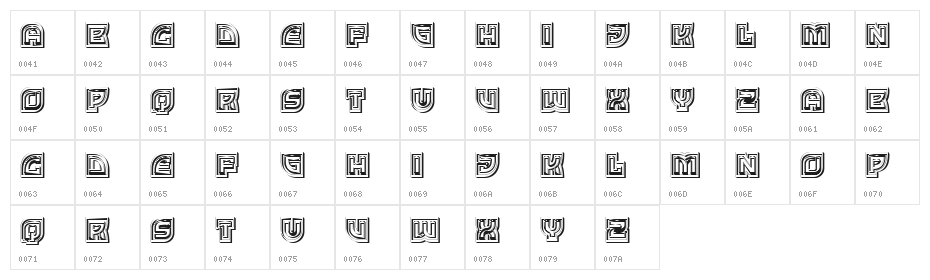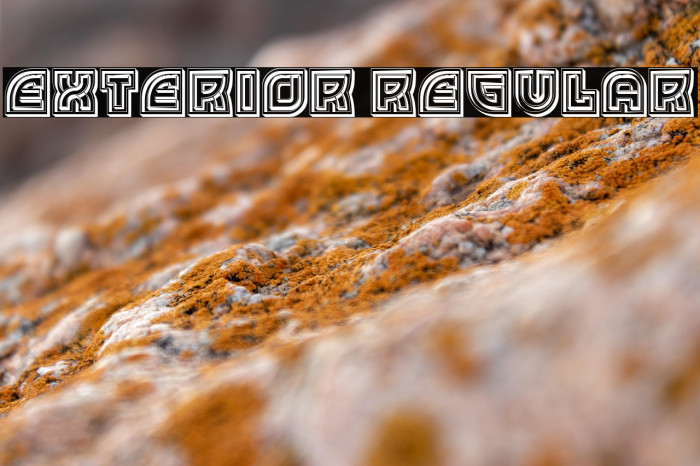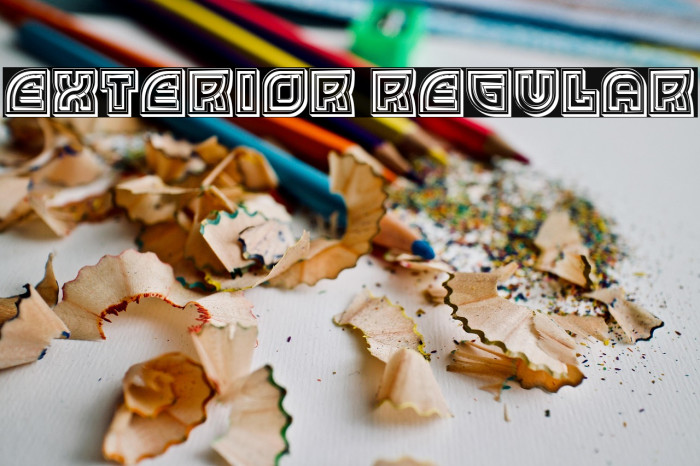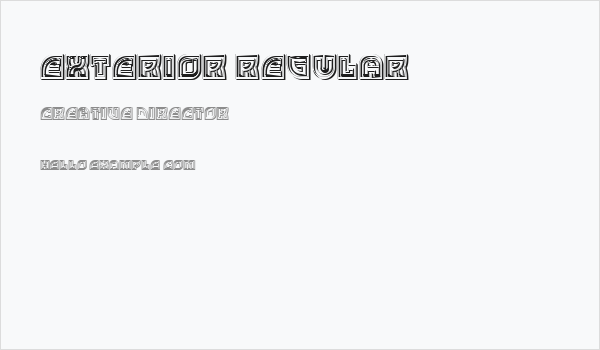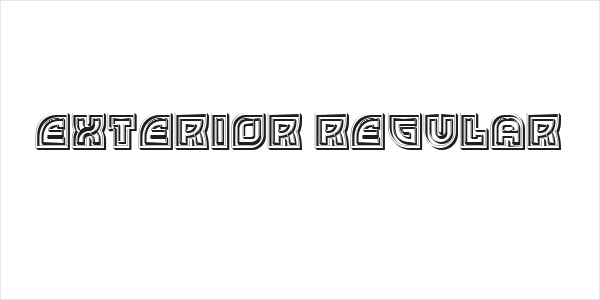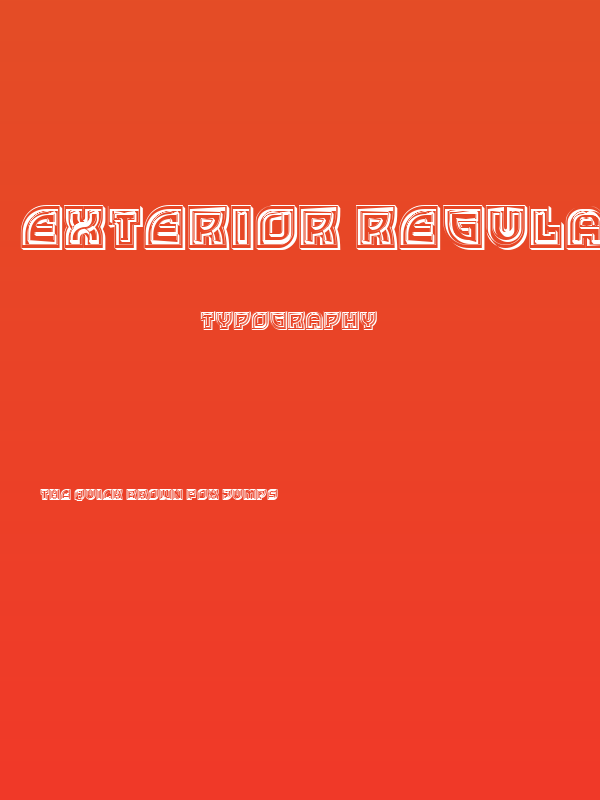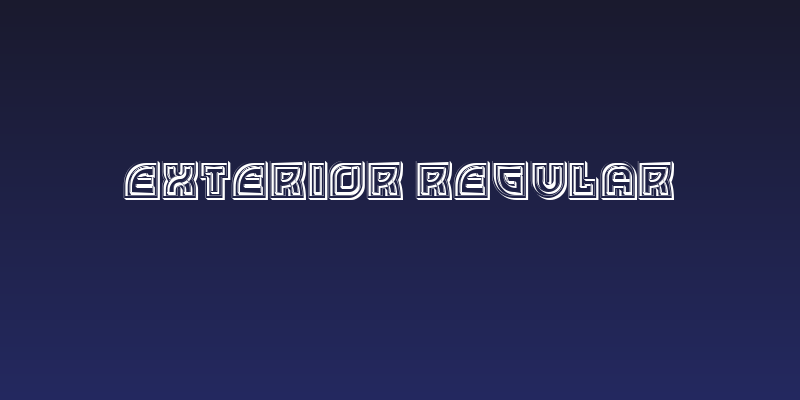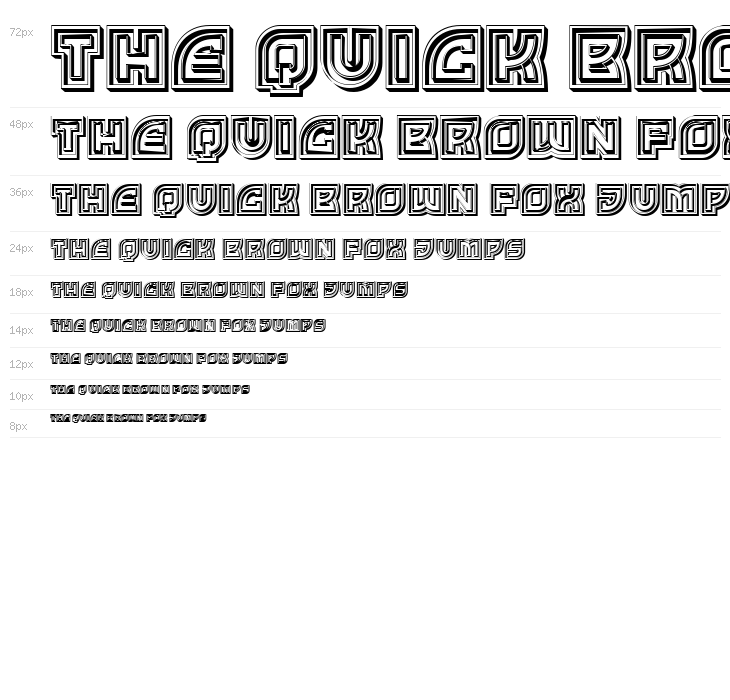
Exterior Regular Font
Exterior Regular Description
This font features a bold, geometric design with a three-dimensional effect created by multiple outlines. The characters are uppercase only, with a strong, architectural appearance. The intricate layering of lines gives it a dynamic and eye-catching look, making it suitable for impactful designs. The style is reminiscent of Art Deco with a modern twist, emphasizing symmetry and boldness. The font's unique structure makes it stand out, ideal for projects that require a striking visual element.
| Proposed Projects | Ideal for posters, logos, and branding materials that require a strong visual impact. |